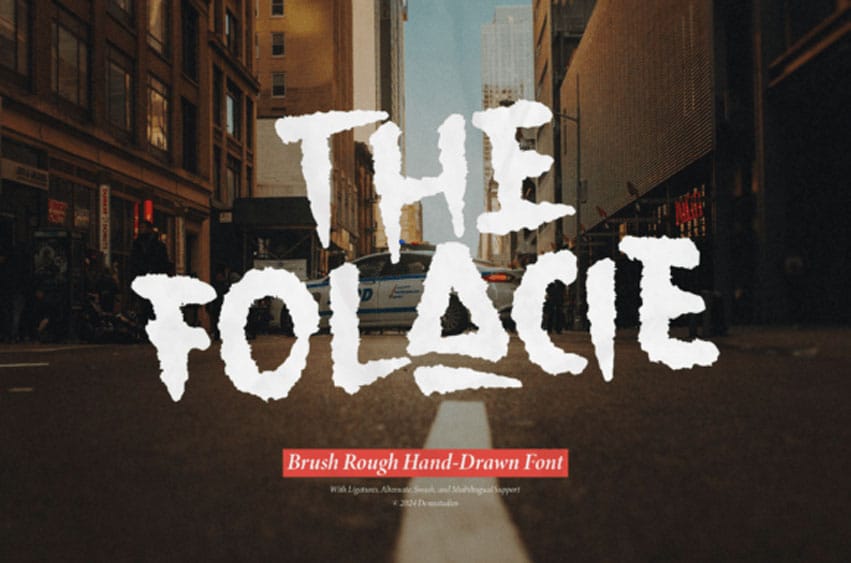
The Folacie Font
The Folacie Font is a rough, hand-drawn design that has a raw, sketchy look.
It features uneven lines and a natural, unrefined style, giving it a unique, artistic feel.